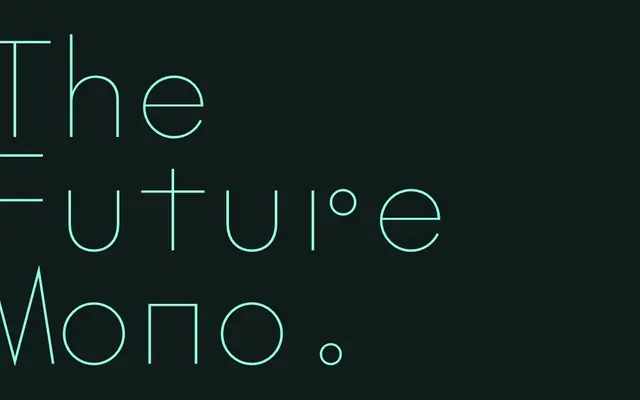
The Future Mono
Klim Type Foundry · Kris Sowersby · 2022
The Future Mono specimen from Klim Type Foundry
A geometric monospace by Kris Sowersby that imagines Futura as a typewriter face, with seven weights and a deep stylistic alternates set.
A geometric monospace by Kris Sowersby drawn as a speculative pairing for The Future, treating Futura as if it had been cut for a typewriter rather than for advertising. Seven weights from Thin to Black run with italics, and the OpenType set carries fifteen stylistic sets covering alt a, g, h, m, n, r, u and square forms borrowed from Renner's avant-garde alternates. Reads cleanly in code and captions, then turns expressive when the alternates are switched on for posters or art direction.
Klim classifies it as Monospaced geometric sans-serif; a speculative reimagining of Futura as a typewriter font commissioned by Kyota Sugimoto, sitting alongside The Future as a homage to Paul Renner's geometric classic.